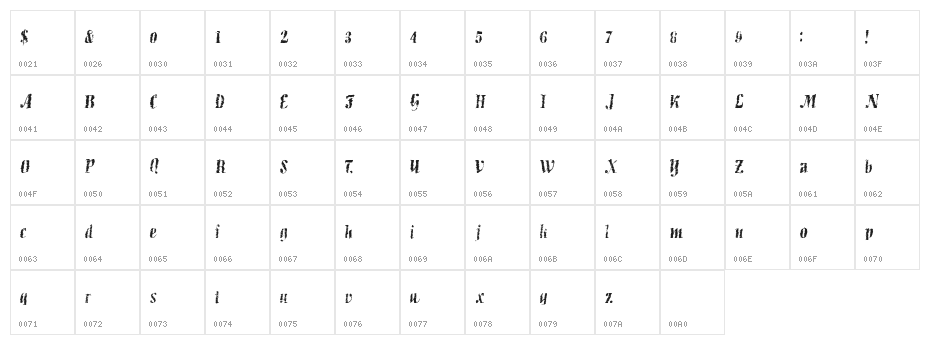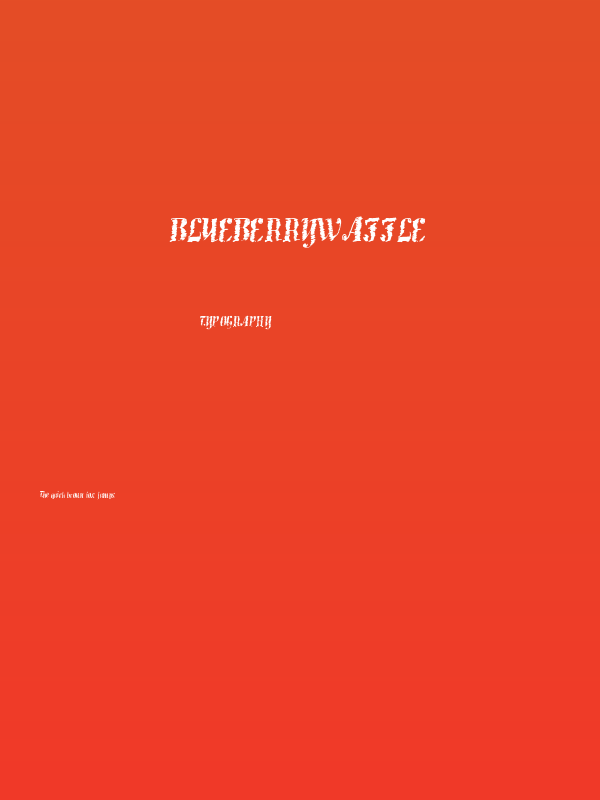
BlueberryWaffle Font
BlueberryWaffle Description
This font features a bold and distressed style, characterized by its rough, textured appearance. The letters have a unique, weathered look, giving them a vintage and rustic feel. The uppercase and lowercase letters maintain a consistent design, with slightly irregular edges that add to the overall charm. Numbers and special characters follow the same aesthetic, ensuring a cohesive look across all text. The font's distinct style makes it stand out, ideal for projects that require a touch of nostalgia or a handcrafted appearance.
Overall StyleVintage
Proposed ProjectsIdeal for vintage-themed posters, rustic branding, and handmade product packaging.